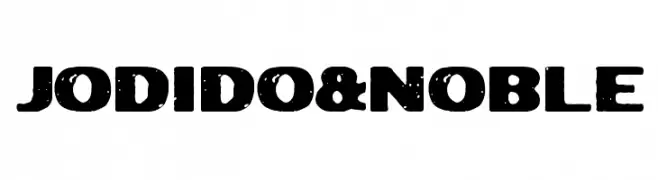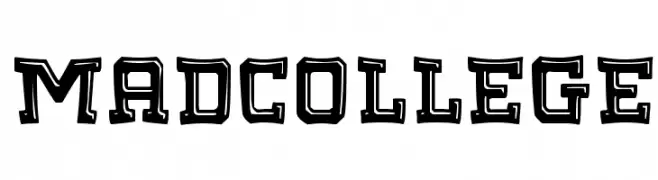
Playful, high-contrast decorative ice cream icon set.
A bold, jagged font with an aggressive, dynamic style.
A bold, distorted font with an interference effect for a modern, edgy look.
A bold, distressed font with a vintage, grunge aesthetic.
A bold, decorative serif font with a vintage flair.
A playful, heart-themed font with bold, stylized characters.
A bold, geometric font with sharp angles and a modern, edgy style.
A bold, handcrafted font with a strong, impactful design.
A bold, decorative font with a collegiate, vintage style.
A gothic, medieval-inspired font with sharp serifs and bold styling.